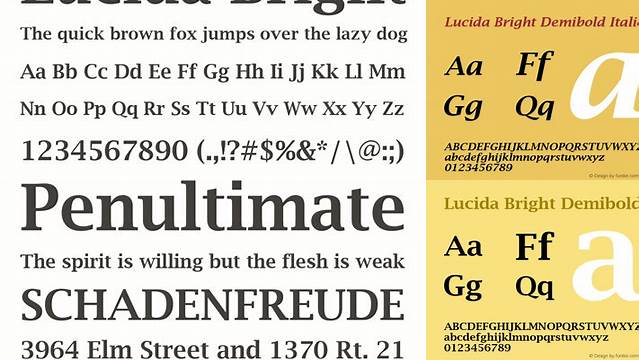
Introduction to the Lucida Bright Demi Font Family
Lucida Bright Demi, a distinguished member of the Lucida font family, is celebrated for its elegant design and exceptional readability. This typeface, crafted by Charles Bigelow and Kris Holmes, is a harmonious blend of traditional and contemporary aesthetics, making it a versatile choice for various design applications. If you're on the hunt for a font that exudes professionalism and clarity, Lucida Bright Demi might just be the perfect fit. Its clean lines and balanced letterforms ensure that your text is not only visually appealing but also highly legible, whether in print or on screen. The Lucida font family, in general, has a rich history, initially designed to address the challenges of early laser printers and low-resolution displays. Lucida Bright Demi, in particular, builds on this legacy by offering a refined and polished look, ideal for both body text and headlines. The font's demi-bold weight strikes a perfect balance, providing enough emphasis without overwhelming the reader. This makes it an excellent choice for documents, presentations, and websites where clarity and impact are essential. Moreover, Lucida Bright Demi's extensive character set supports a wide range of languages, making it a global-friendly option for designers and content creators worldwide. It includes not only the standard Latin alphabet but also various diacritics, ligatures, and symbols, ensuring that you have all the necessary tools to communicate effectively. Guys, you'll find that incorporating Lucida Bright Demi into your projects can significantly enhance their visual appeal and readability. Whether you're designing a corporate report, a marketing brochure, or a user interface, this font will help you convey your message with style and precision. The font's timeless design ensures that it remains relevant and effective, regardless of the latest design trends. So, if you're looking to elevate your design game, Lucida Bright Demi is a fantastic choice to consider. Its blend of elegance, clarity, and versatility makes it a valuable asset in any designer's toolkit.
Key Features and Design Aspects of Lucida Bright Demi
When diving into the key features of Lucida Bright Demi, you'll quickly notice its meticulous design and attention to detail. This font family stands out due to its exceptional clarity and readability, making it a top choice for extensive text blocks. The letterforms are carefully crafted with a balanced contrast between thick and thin strokes, ensuring each character is distinct and easily recognizable. This is particularly crucial for body text, where readability is paramount. One of the defining characteristics of Lucida Bright Demi is its slightly condensed design. This allows for efficient use of space without compromising legibility. In layouts where space is at a premium, this feature can be a game-changer. The condensed nature of the font means you can fit more text into a given area, which is beneficial for things like brochures, magazines, and web layouts. Furthermore, Lucida Bright Demi boasts a generous x-height, which refers to the height of the lowercase letters relative to the uppercase letters. A larger x-height enhances readability, especially in smaller font sizes. This makes the font a great option for documents that require a lot of text, such as reports, articles, and books. The font's design also includes subtle serifs that add a touch of elegance and sophistication. These serifs are not overly pronounced, maintaining a clean and modern look while still providing the classic feel of a serif typeface. This makes Lucida Bright Demi versatile enough to be used in both traditional and contemporary designs. Another notable aspect is the uniformity and consistency in the design of the characters. Each letterform is meticulously crafted to ensure it harmonizes with the others, creating a cohesive and professional appearance. This consistency is vital for maintaining a polished look throughout your designs. The Lucida Bright Demi font family also includes a range of weights and styles, such as italic and bold variations, providing designers with a comprehensive toolkit for various design needs. These variations allow you to create visual hierarchy and emphasis within your text, enhancing the overall impact of your message. In summary, the key features of Lucida Bright Demi—its clarity, condensed design, generous x-height, elegant serifs, and consistent letterforms—make it a standout choice for any project requiring a professional and readable typeface. Guys, you'll appreciate how these design aspects come together to create a font that is both functional and aesthetically pleasing, making your designs truly shine.
Applications and Use Cases for Lucida Bright Demi
When considering the applications and use cases for Lucida Bright Demi, it becomes clear that this font family is incredibly versatile and well-suited for a wide array of projects. Its exceptional readability and elegant design make it a go-to choice for both print and digital media. In the realm of print media, Lucida Bright Demi shines in publications such as books, magazines, and newspapers. The font's clarity ensures that long blocks of text are easy on the eyes, making it ideal for body text. Its slightly condensed design also allows for efficient use of space, which is a significant advantage in layouts where real estate is limited. Additionally, its sophisticated appearance makes it a great fit for headings and subheadings, providing a professional and polished look. For corporate documents and reports, Lucida Bright Demi is an excellent option. Its clean lines and balanced letterforms convey a sense of professionalism and credibility, making your reports and presentations look polished and authoritative. The font's ability to maintain clarity even in smaller sizes ensures that your documents are easy to read, whether printed or viewed on a screen. In the digital space, Lucida Bright Demi is equally impressive. It works exceptionally well for website body text, providing a pleasant reading experience for your visitors. Its legibility on screens of various sizes and resolutions makes it a reliable choice for web designers. Moreover, the font's elegant appearance can enhance the overall aesthetic of your website, creating a more engaging and professional online presence. Lucida Bright Demi is also a strong contender for user interface (UI) design. Its clarity and readability are crucial in UI, where users need to quickly and easily understand information. The font's balanced design ensures that text remains legible even in small sizes and at a distance, making it suitable for applications, software, and other digital interfaces. Guys, if you're working on marketing materials, such as brochures, flyers, and advertisements, Lucida Bright Demi can help you create visually appealing and effective designs. Its versatility allows it to complement a wide range of visual styles, from traditional to modern. The font's ability to convey both professionalism and elegance makes it a valuable asset in any marketing campaign. In summary, Lucida Bright Demi's applications are vast and varied. Whether you're designing a book, a website, a corporate report, or marketing collateral, this font family offers the perfect blend of readability and aesthetic appeal. Its versatility and timeless design make it a valuable addition to any designer's toolkit.